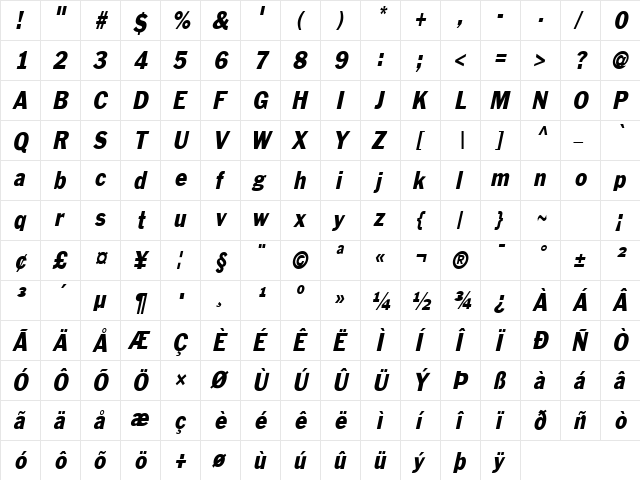
Design Context for Philadelphia-Condensed Typeface
Philadelphia-Condensed is a composed and adaptable typeface that performs quietly and consistently across a wide range of design contexts. The slanted form adds forward momentum and visual energy. The condensed width makes it efficient for tight spaces without sacrificing legibility.
Pro Tip: Try Philadelphia-Condensed for annotation and caption copy alongside an upright companion — the contrast in angle creates a dynamic but ordered typographic system.